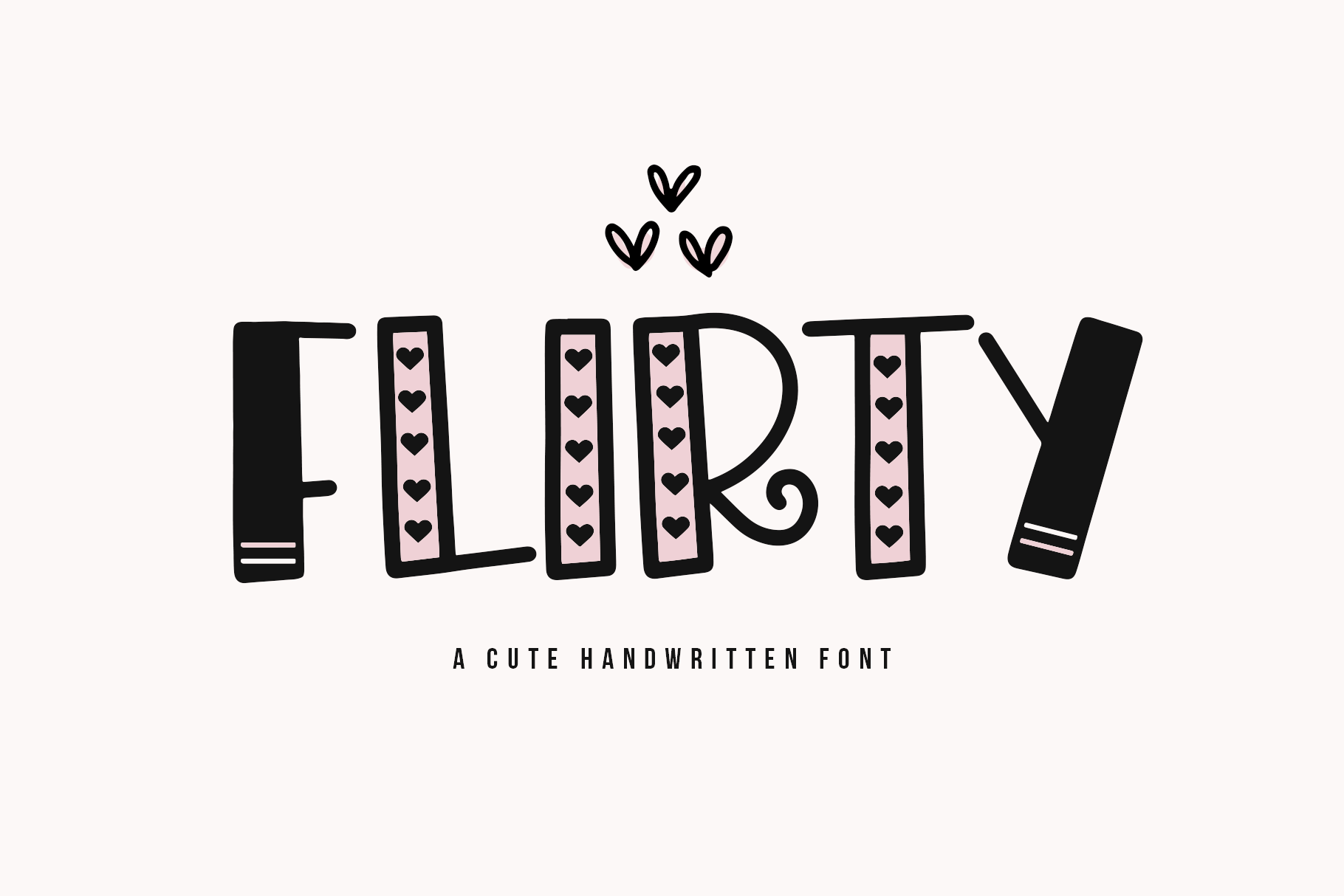
Flirty | Valentine's Day Font
Flirty is a cute and quirky handwritten font.
This font is perfect for Valentine's Day designs! It is also great for quotes, headings, t-shirts, logos, svg designs, mugs, invitations and more!